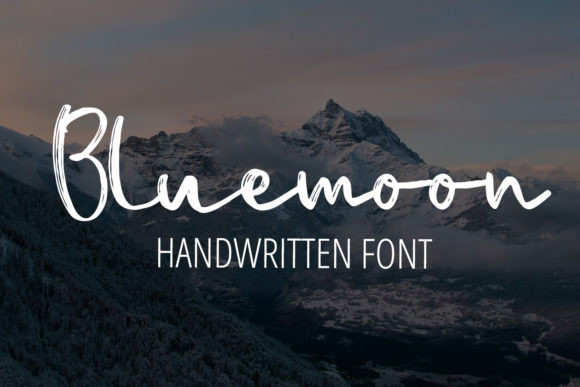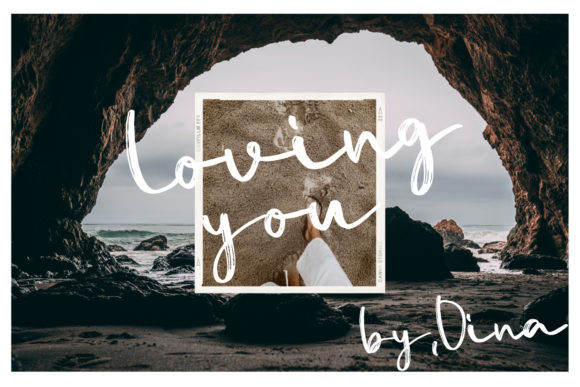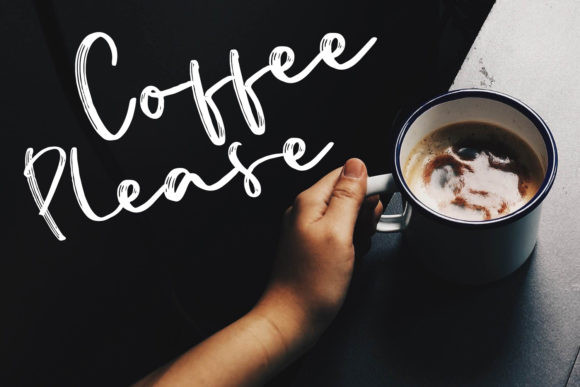
Bluemoon Font
Bluemoon is a sweet, brushed handwritten font. Its distinct and well rounded letters make this font a masterpiece. Fall in love with its incredibly versatile style and use it to create spectacular designs!